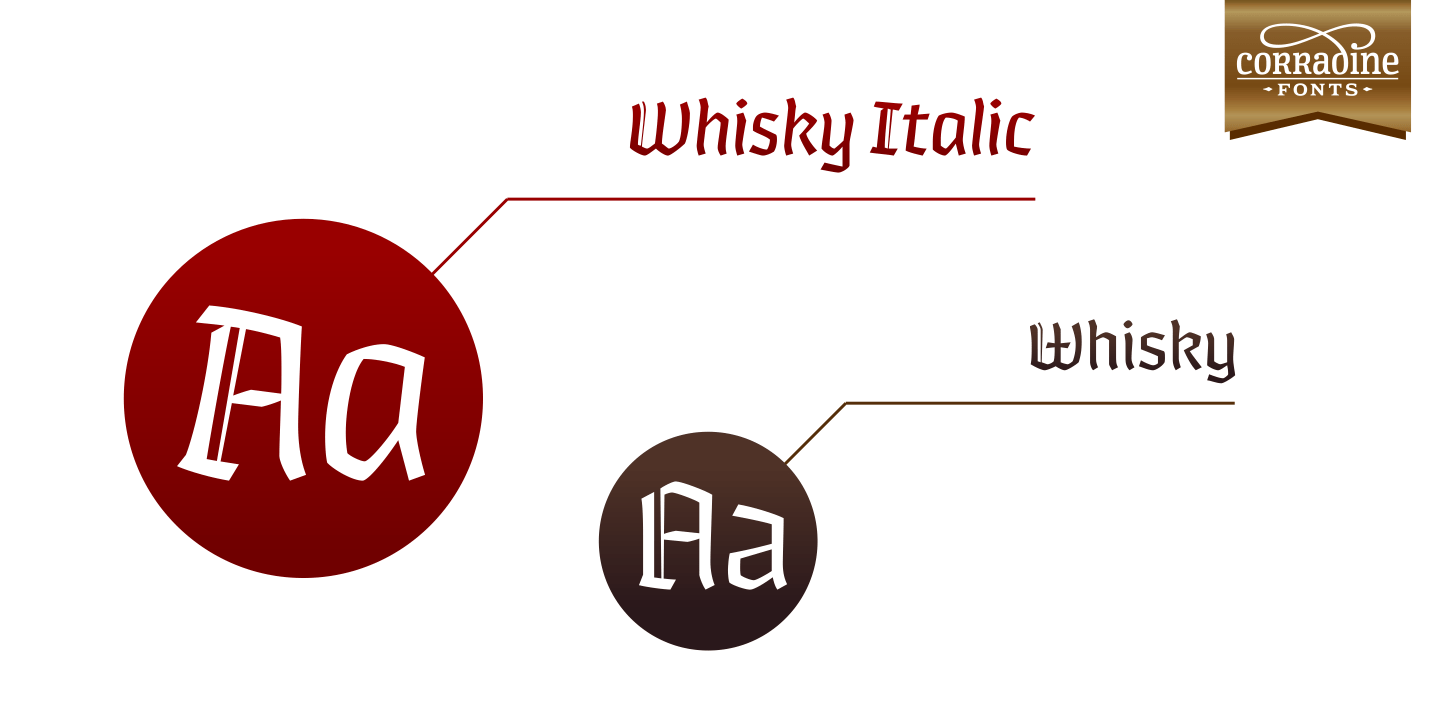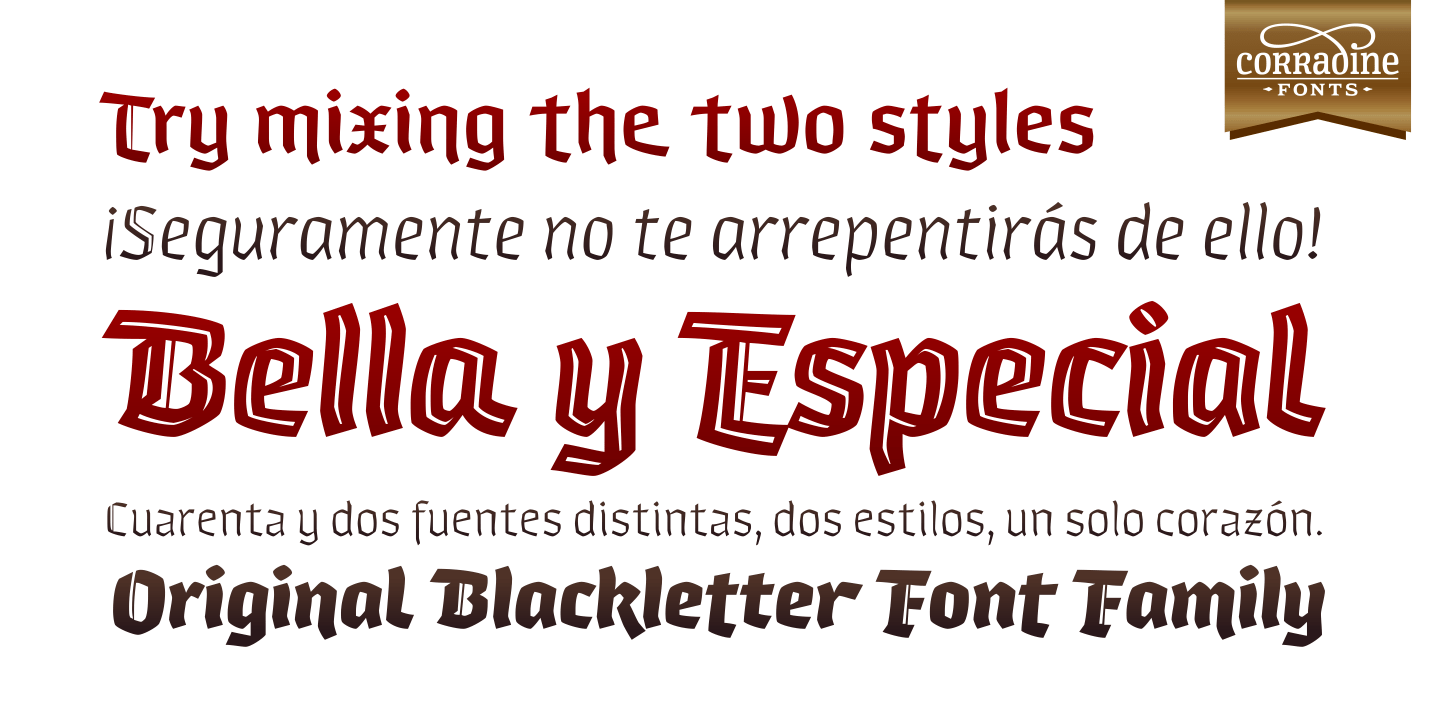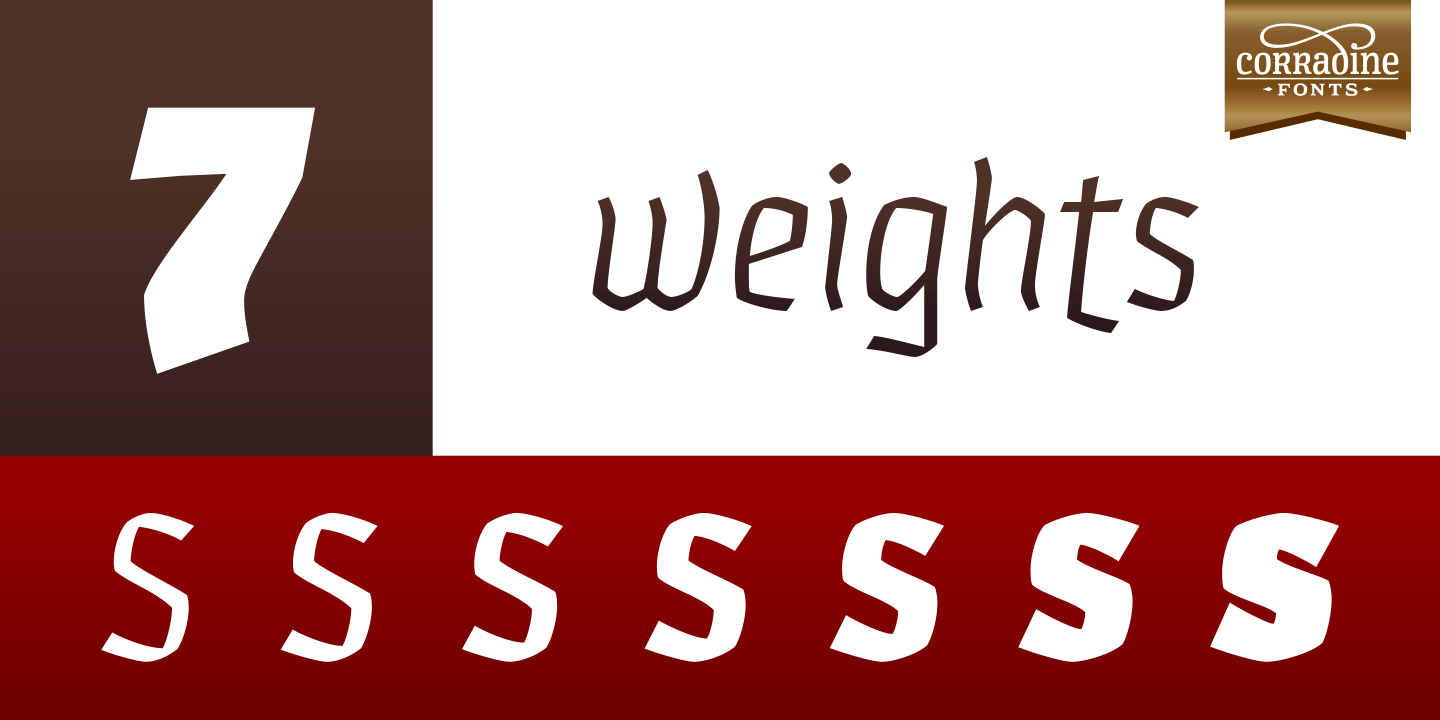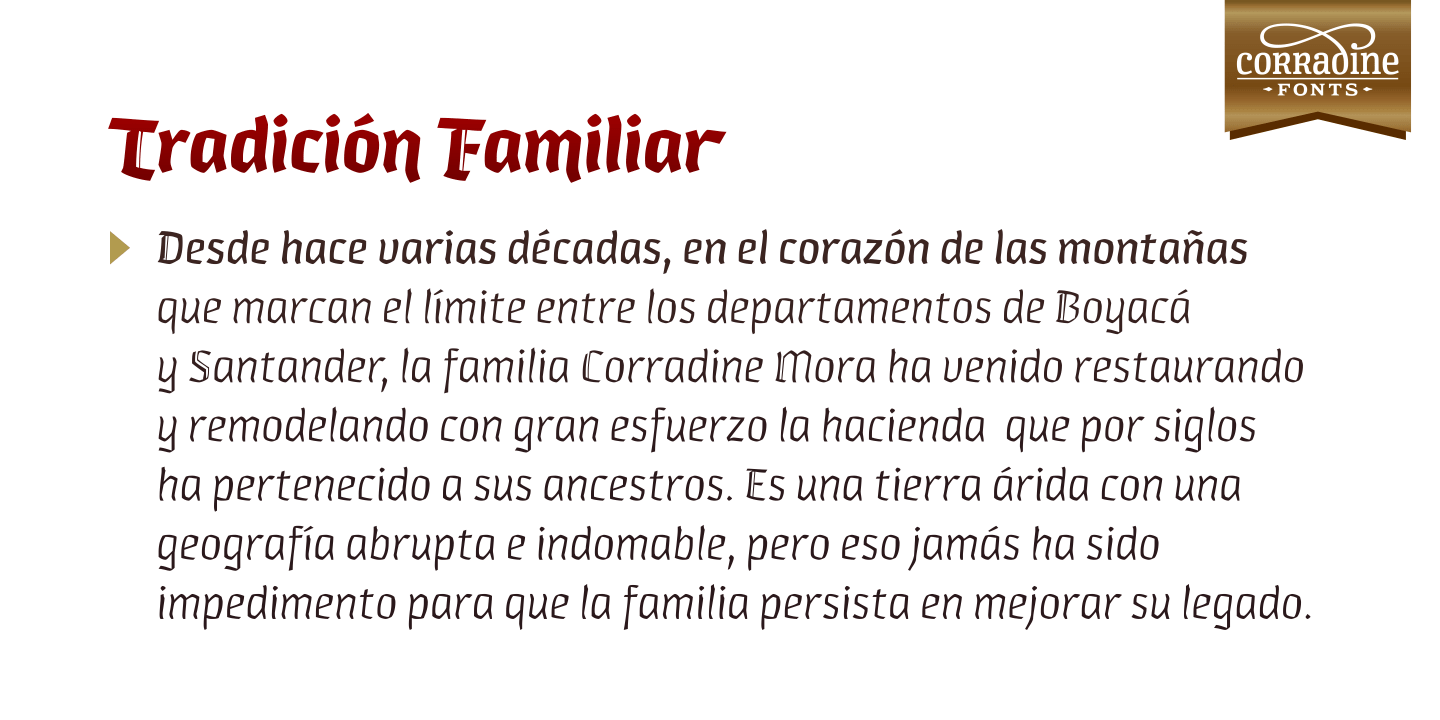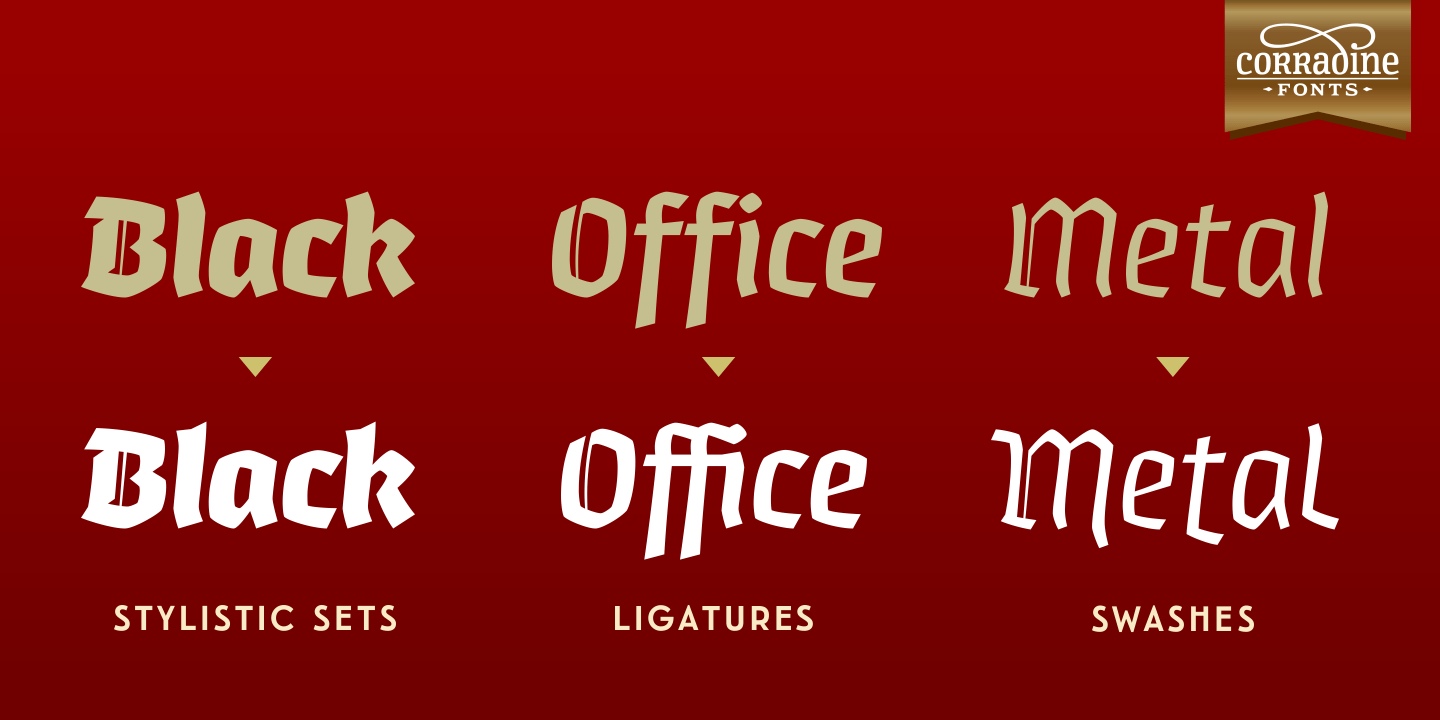
About Whisky Italics
Whisky is a blackletter font family with a casual touch that makes it look friendly and current. The stroke varies its thickness and angle endings making it form very dynamic bodies of text. Whisky Italics are the corresponding versions to the original…